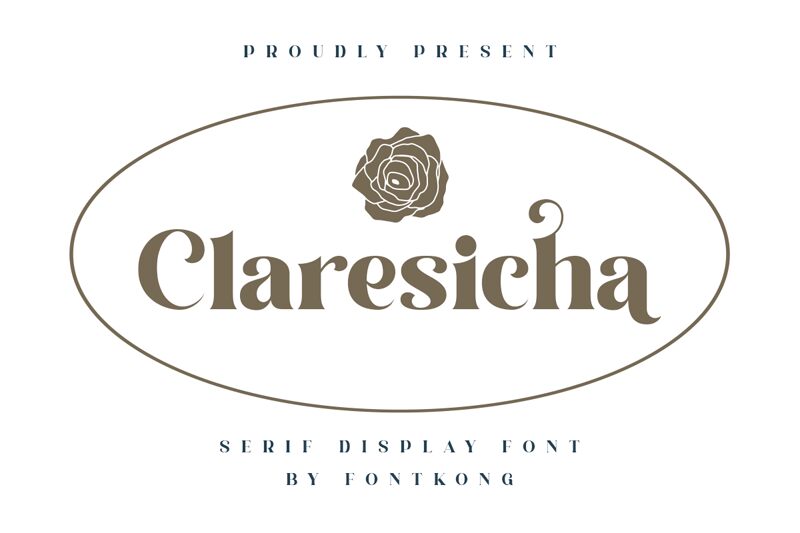
Claresicha font by Kong Font is an elegant and free serif font inspired by baroque and classical elements. A luxurious character with a floral sense is formed with delicate letter elements and decorative tails. This vintage font blends historical echoes with modern font design techniques for the utmost clarity and functionality.
Implement the charm of classic elegance into your next artistic project, no matter its format, size, or style. The font is ideal for branding projects and headlines in brochures, magazines, newspapers, online blogs, advertisements, or social media posts. Consulte the other type to use it with logotypes or product packaging.